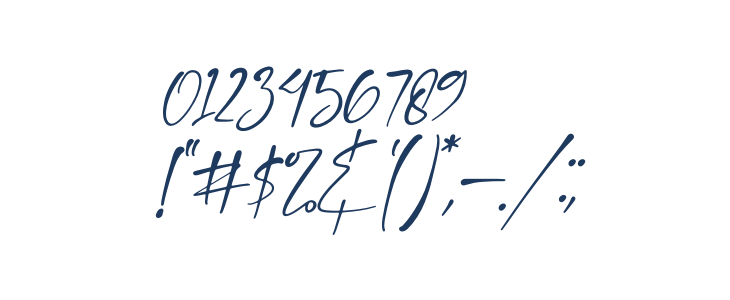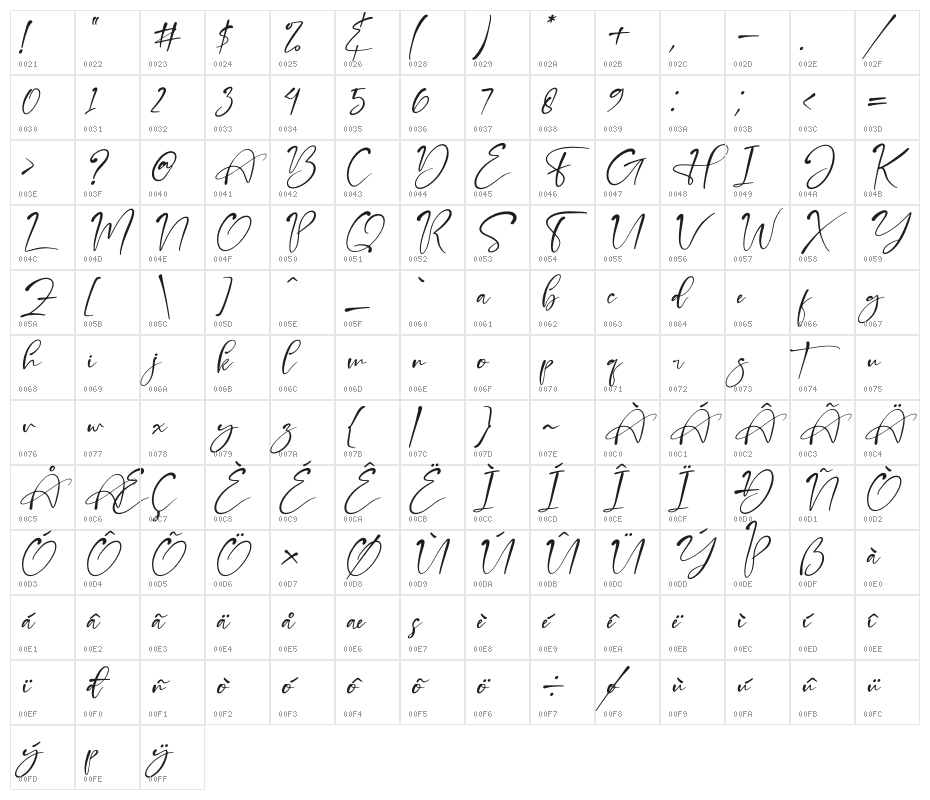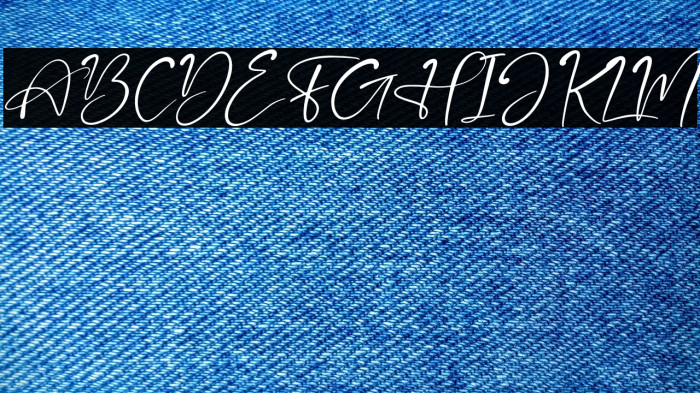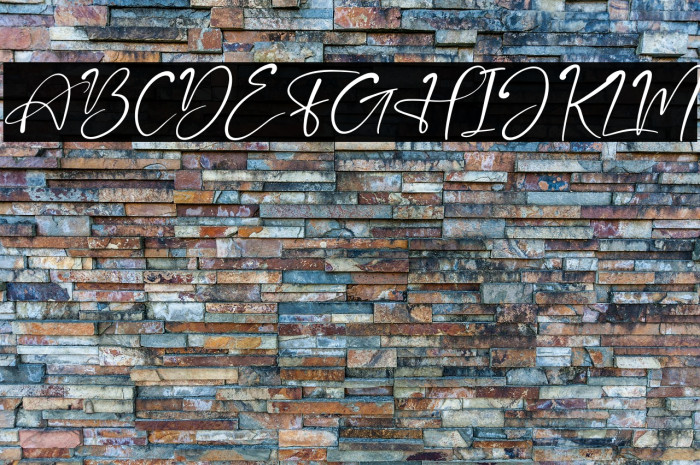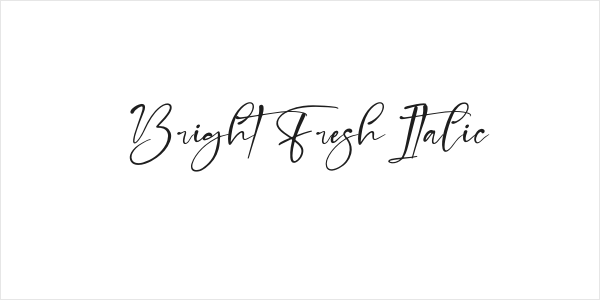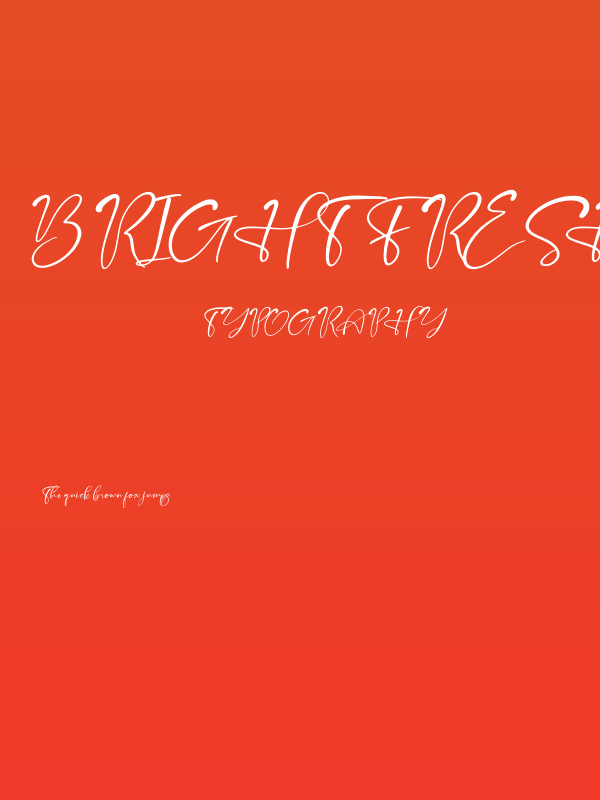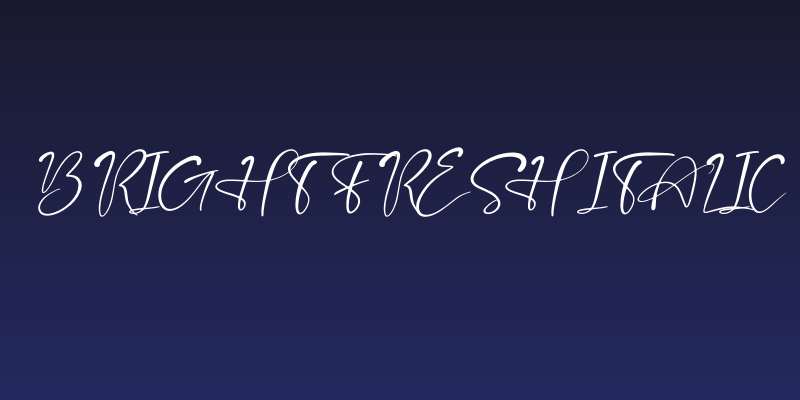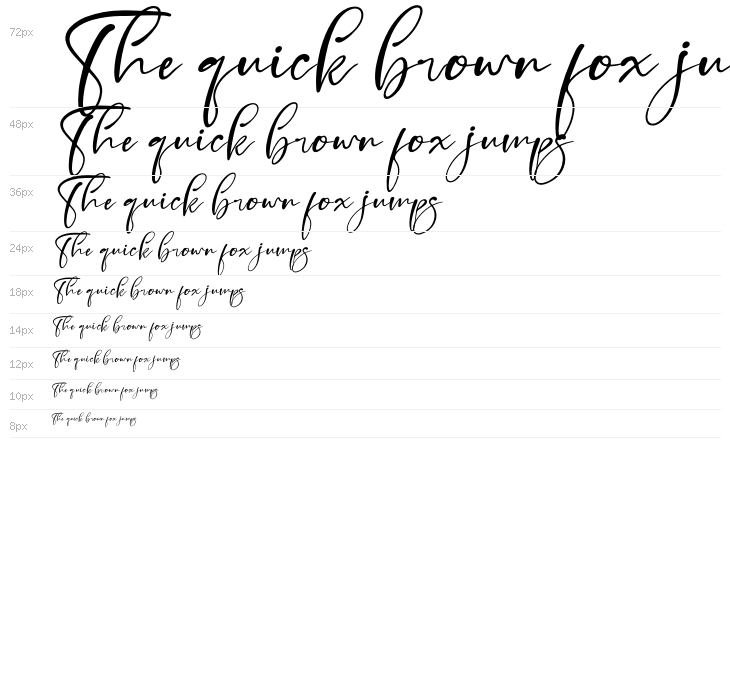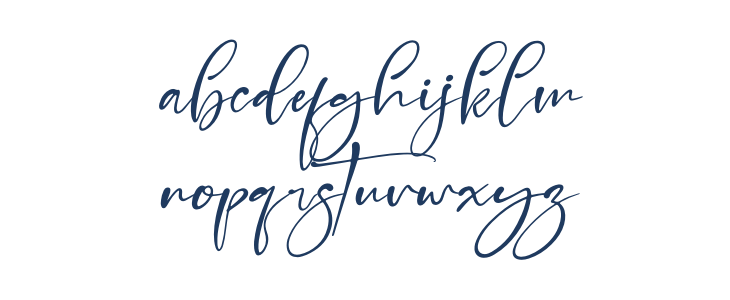
Bright Fresh Italic Font
Bright Fresh Italic Description
This font exudes a lively and dynamic energy, characterized by its flowing, cursive script style. The letters are elegantly connected, creating a sense of movement and fluidity. The uppercase and lowercase letters maintain a consistent slant, enhancing the italic nature of the font. The strokes are smooth and slightly varied in thickness, adding a touch of sophistication. The numbers and special characters are crafted with the same attention to detail, ensuring a cohesive look across all elements. This font is perfect for projects that require a personal, handwritten touch, such as invitations, greeting cards, or branding materials.